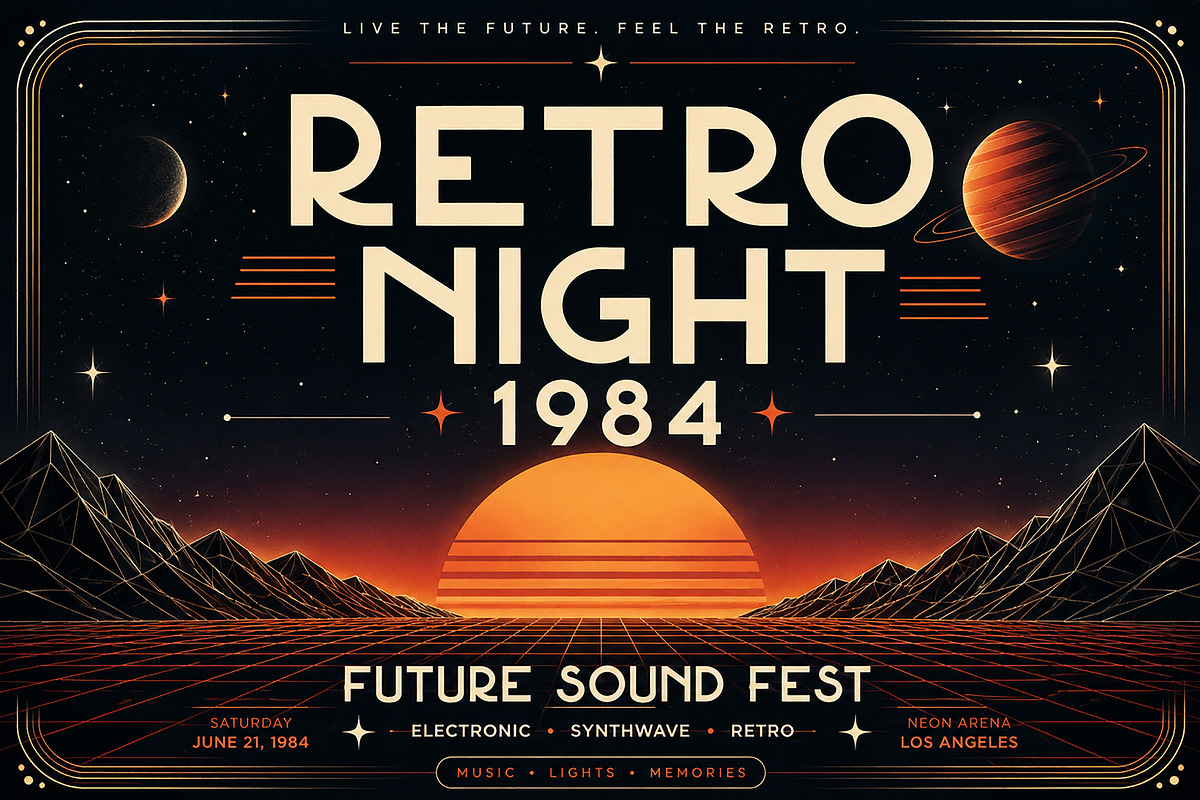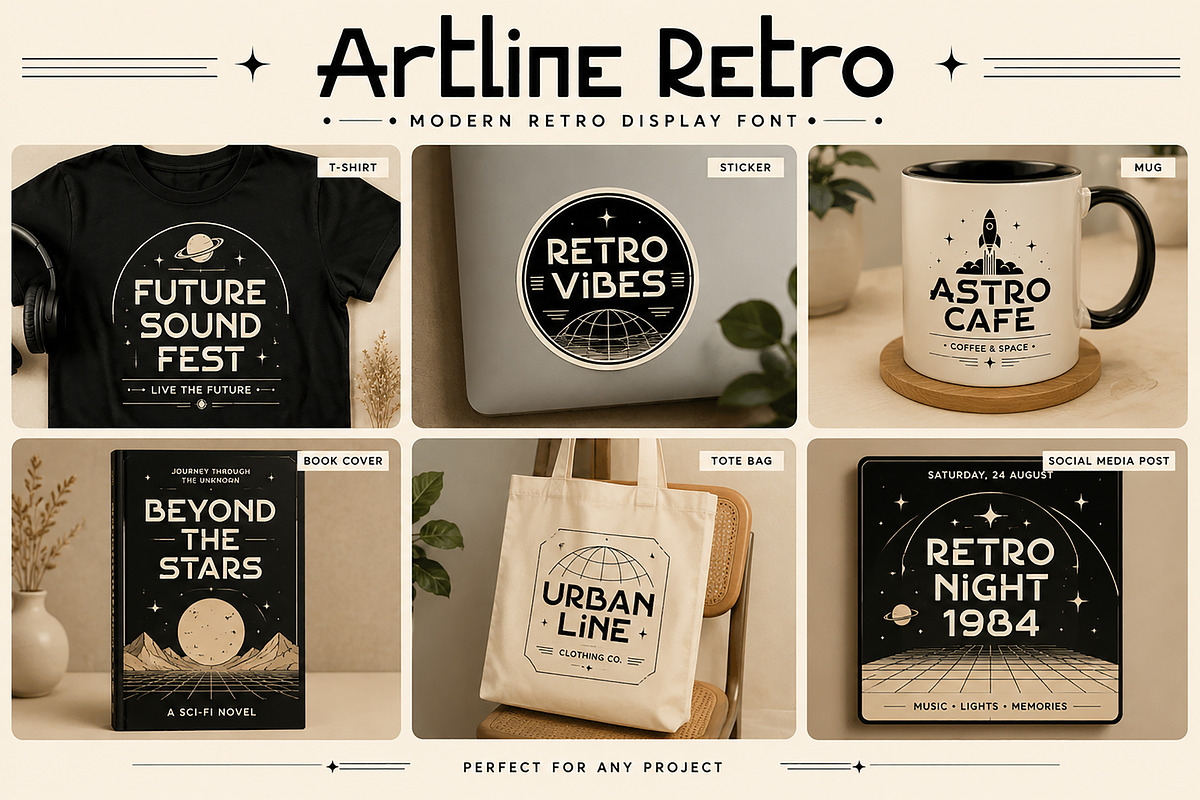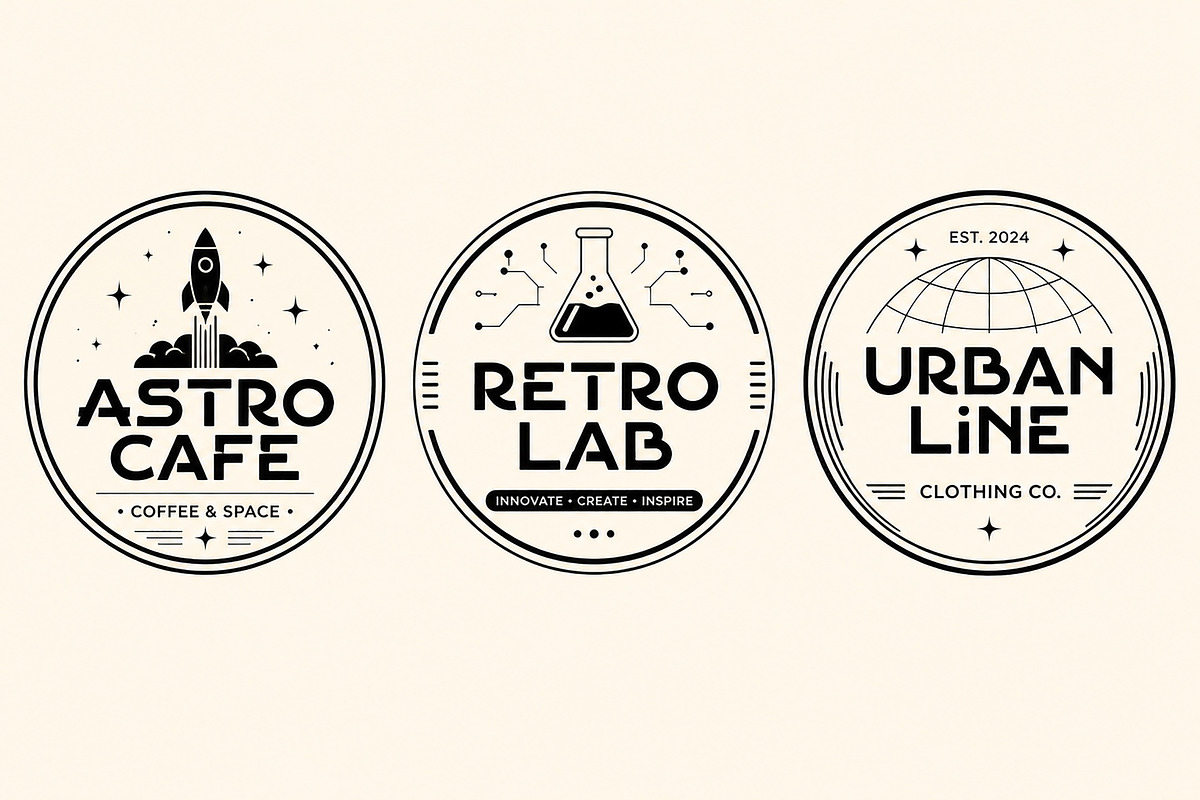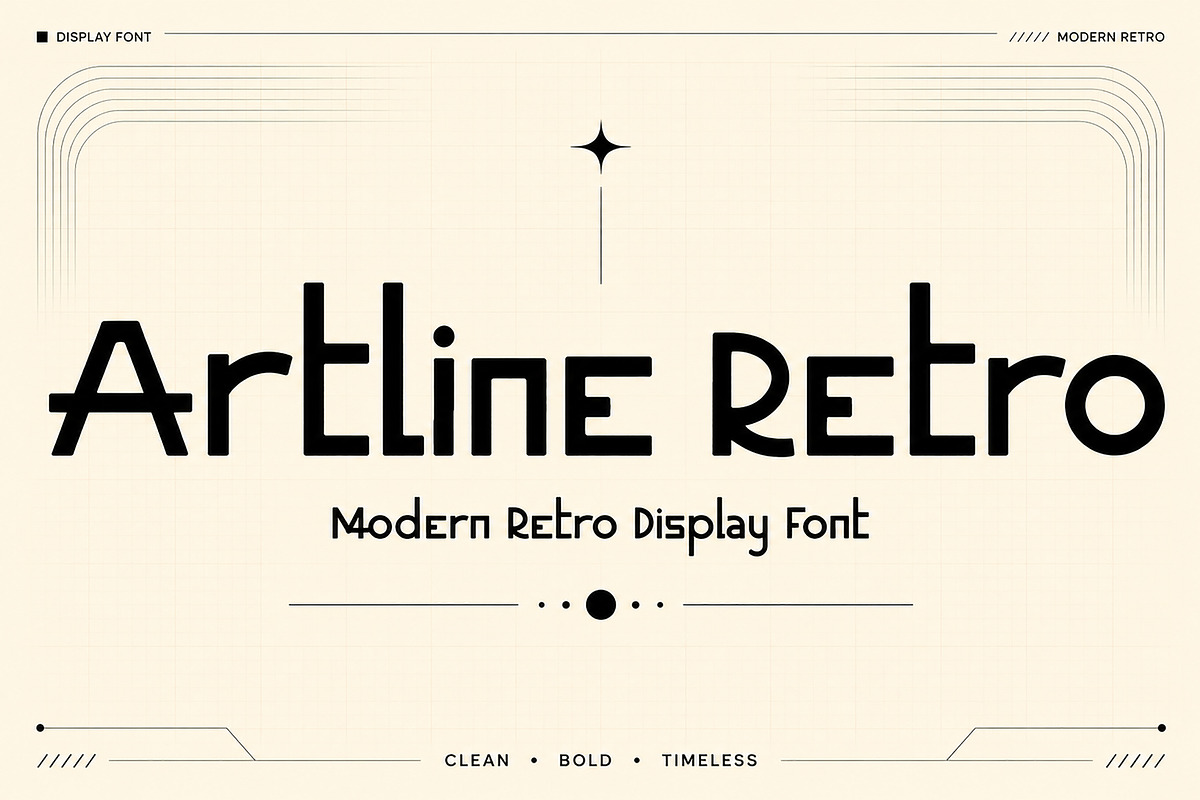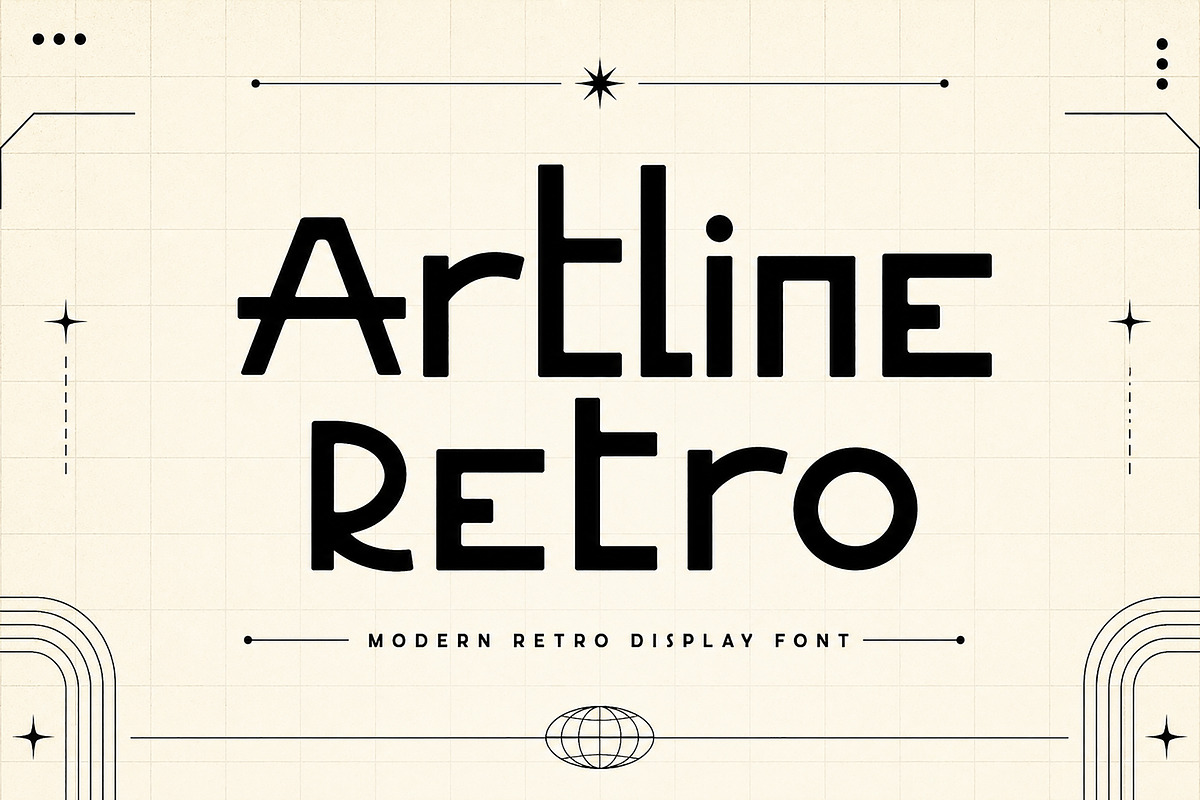
Artline Retro
Artline Retro – Modern Retro Display Font
Description
Artline Retro is a modern retro display font that blends vintage-inspired aesthetics with a clean futuristic touch. Designed with geometric curves, sleek lines, and distinctive letterforms, this typeface brings a unique balance of nostalgia and innovation to your creative projects.
Whether you're designing logos, branding, posters, album covers, apparel graphics, packaging, social media content, or editorial headlines, Artline Retro delivers a bold and memorable visual impact. Its versatile retro-futuristic style makes it perfect for projects that need a modern vintage feel with strong personality.
From music festivals and café branding to fashion labels and creative marketing materials, Artline Retro helps your designs stand out with confidence and style.
Logos & Branding
Retro & Vintage Designs
Posters & Album Covers
Fashion & Apparel
Café & Restaurant Branding
Headlines & Titles
Stickers & Merchandise
Uppercase Letters
Lowercase Letters
Clean & High-Quality Glyphs
Bring a timeless retro atmosphere to your next project with Artline Retro — a bold display font designed for modern creatives.